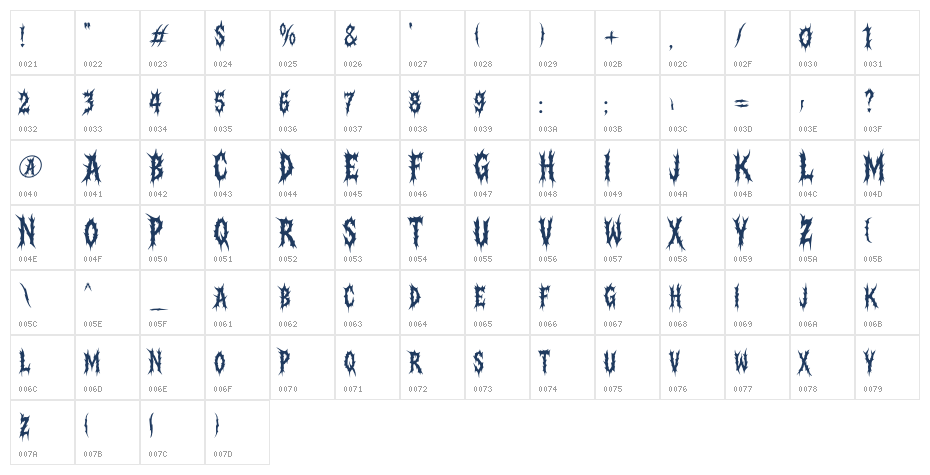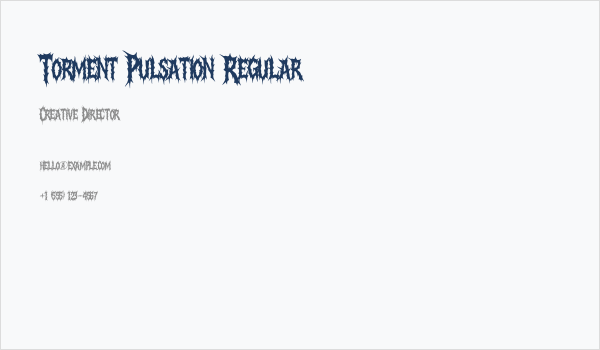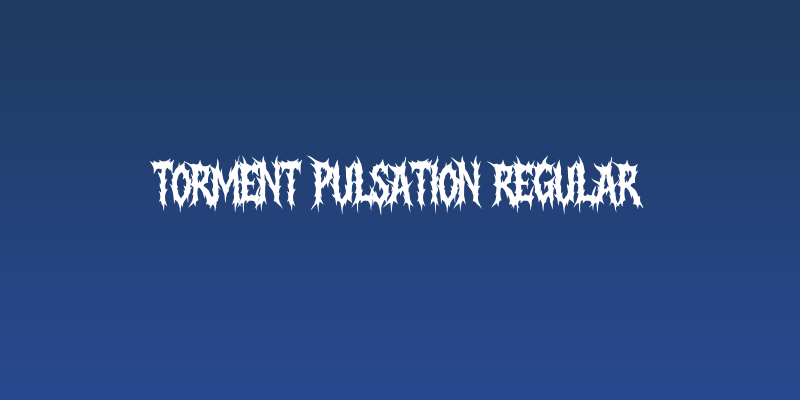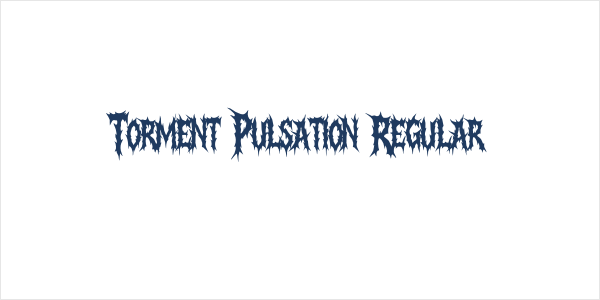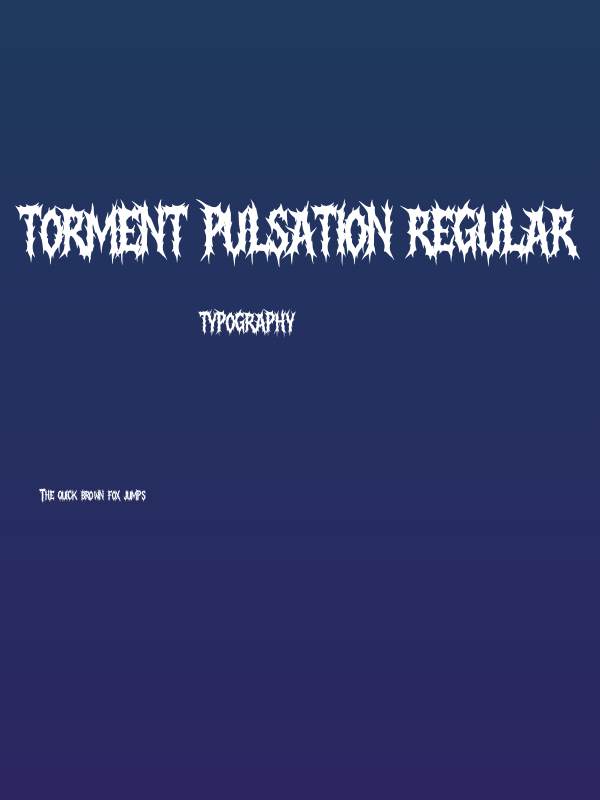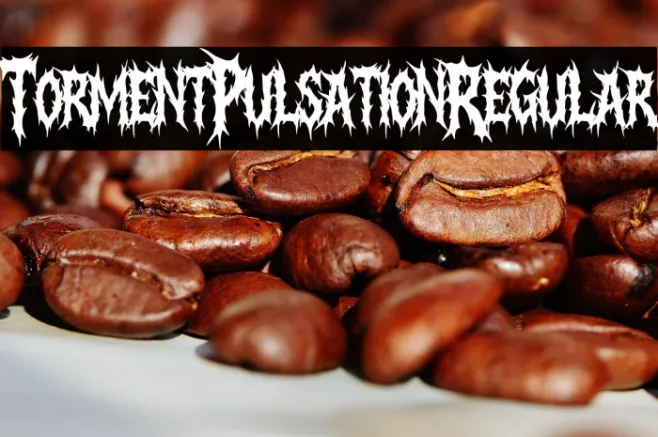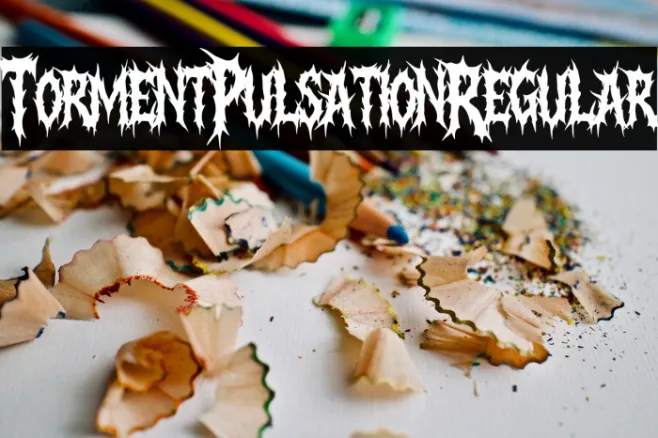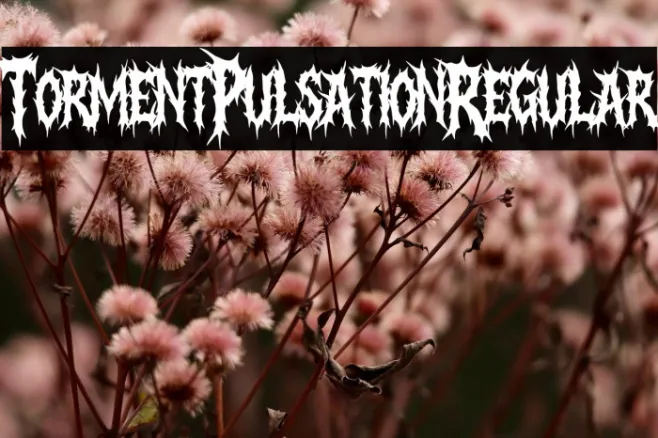
Torment Pulsation Regular Font
Torment Pulsation Regular Description
A highly stylized, jagged, horror-themed font with sharp, irregular edges resembling flames or thorns.